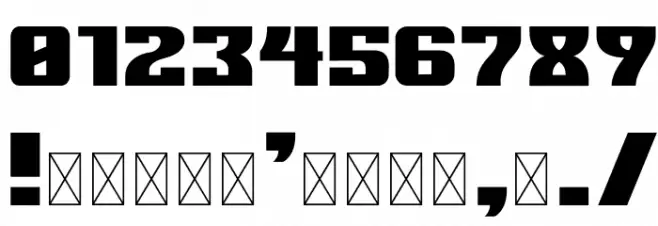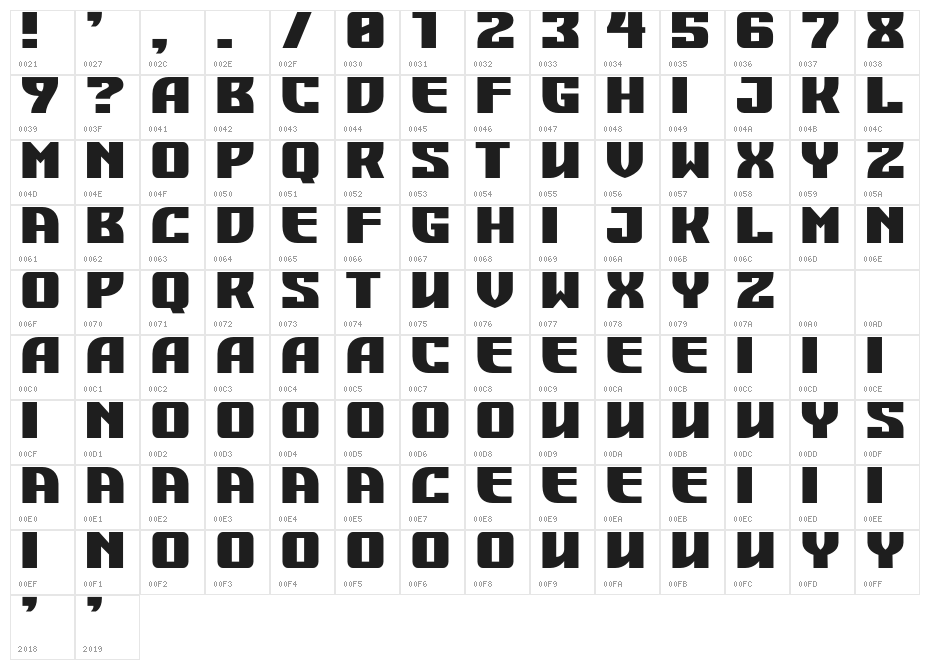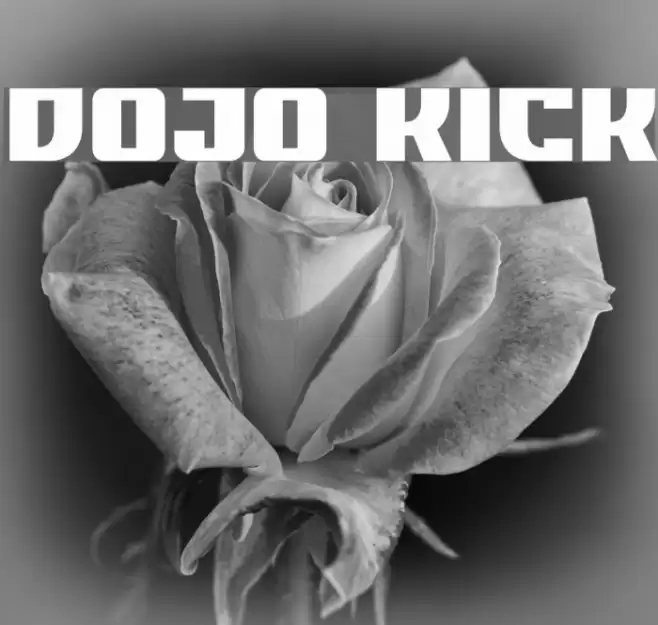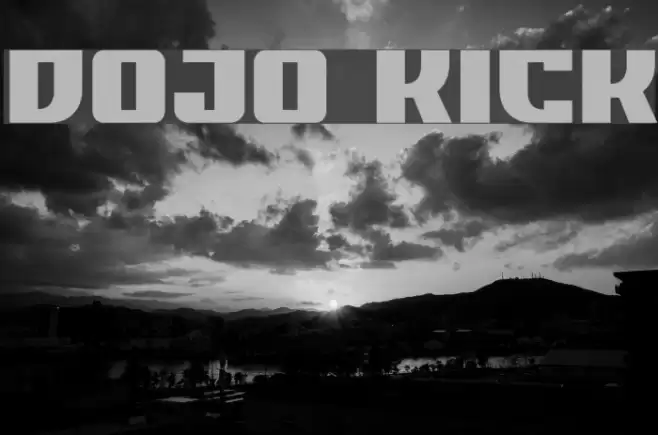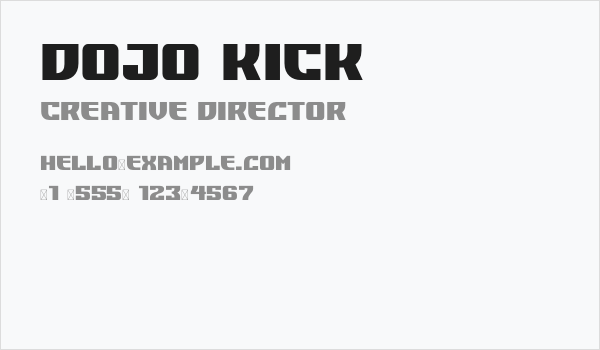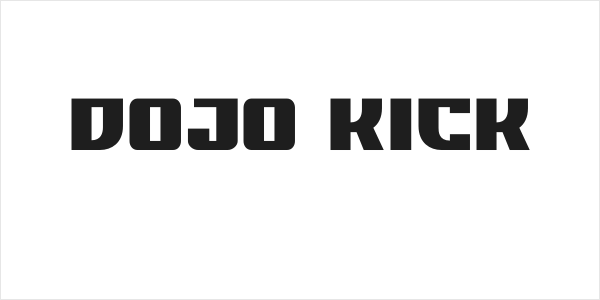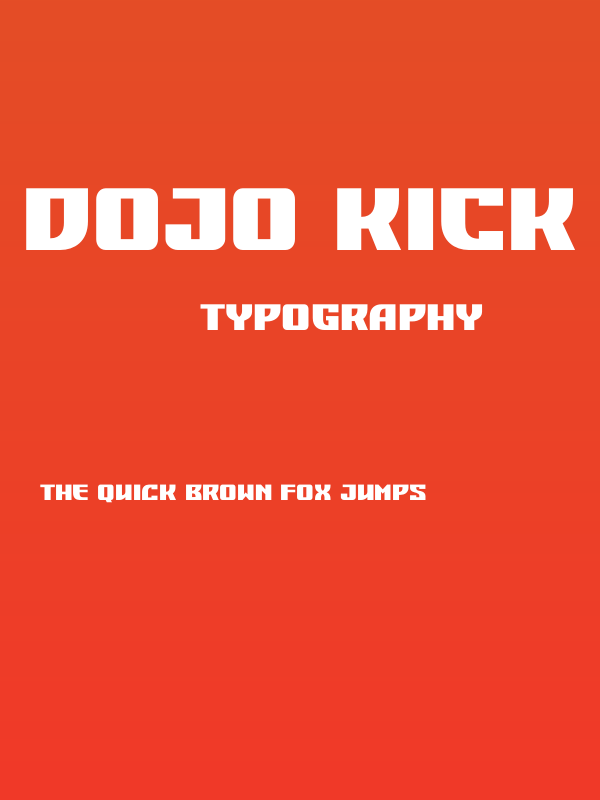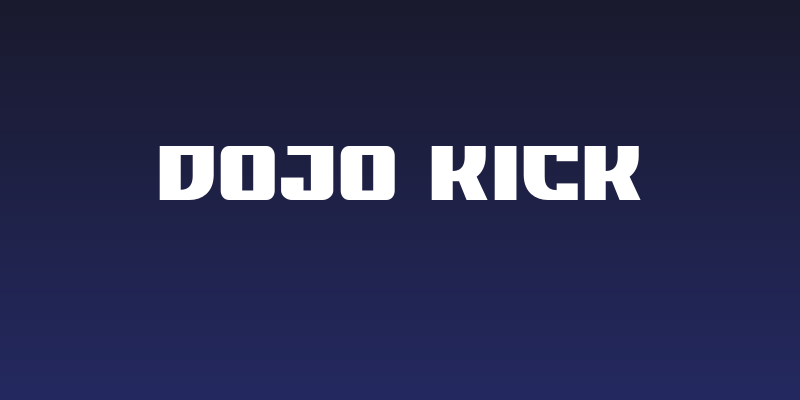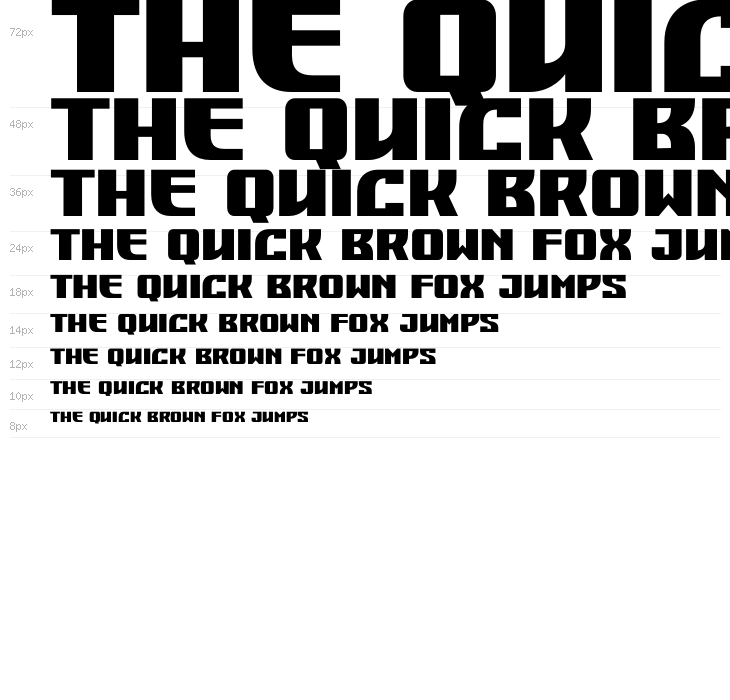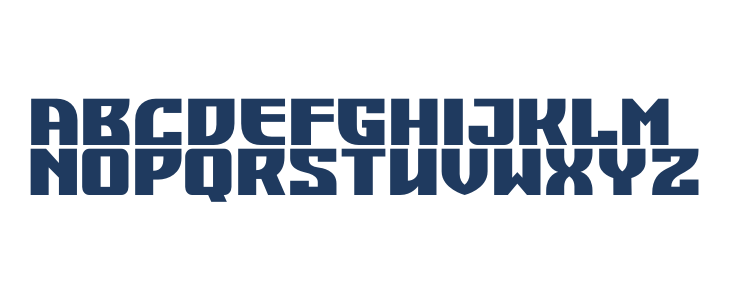
DOJO KICK Font
DOJO KICK Description
This font features bold, geometric letterforms with a strong, impactful presence. The characters are designed with sharp angles and a blocky aesthetic, giving them a modern and assertive look. The uppercase letters are particularly striking, with consistent stroke widths that enhance their boldness. The numerals and special characters maintain the same robust style, ensuring uniformity across all glyphs. This font is ideal for projects that require a strong visual statement, such as branding, posters, or headlines.
| Proposed Projects | Ideal for branding, posters, headlines, and any project needing a strong visual impact. |